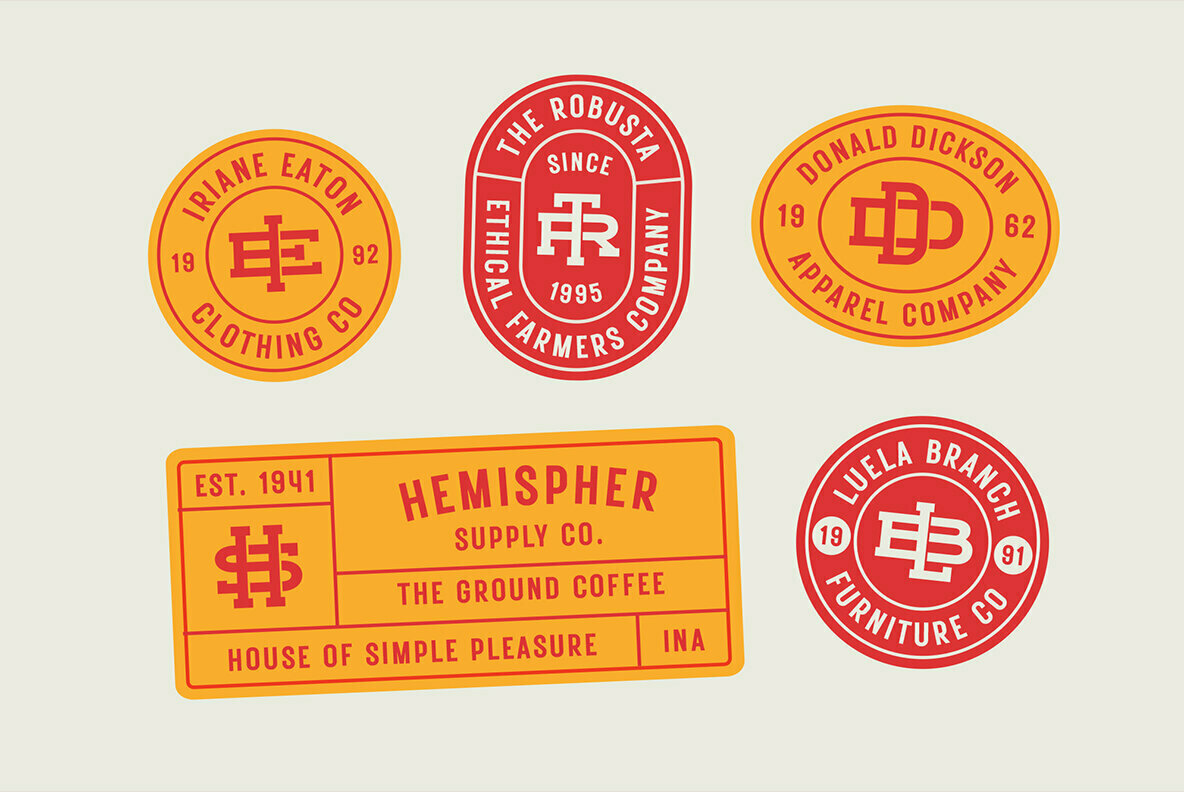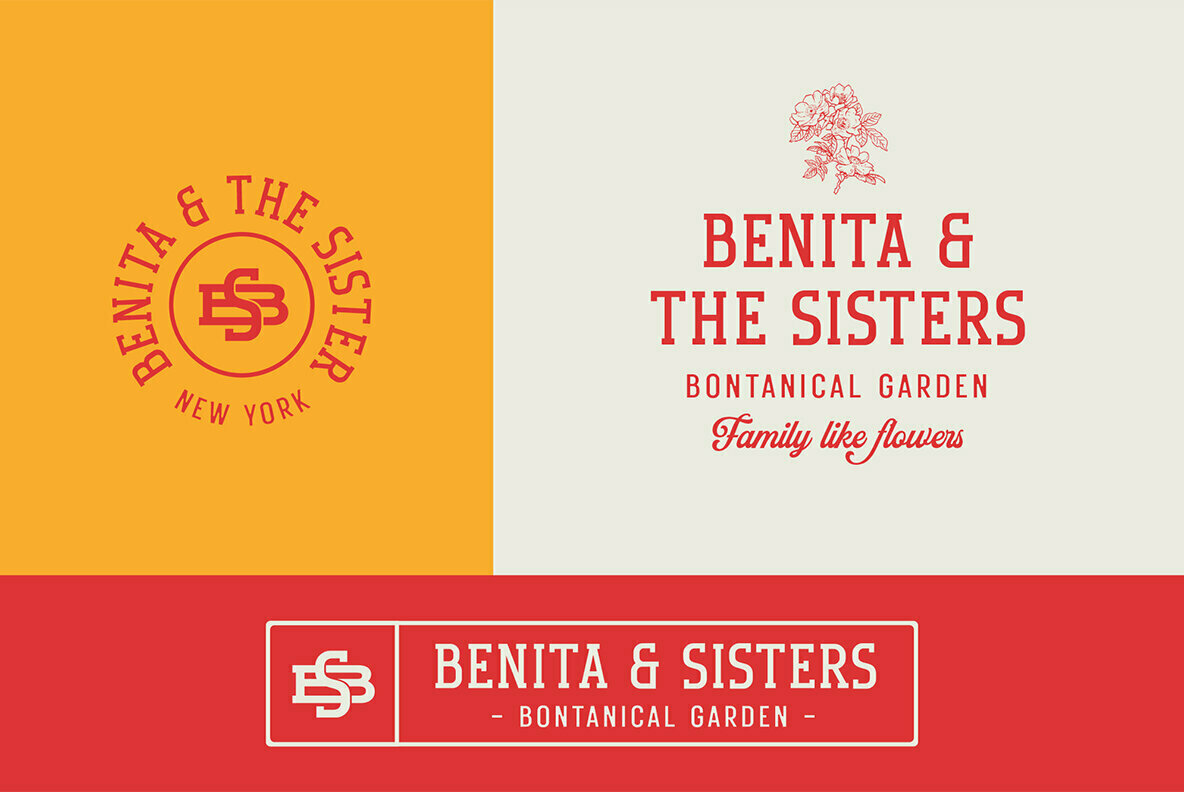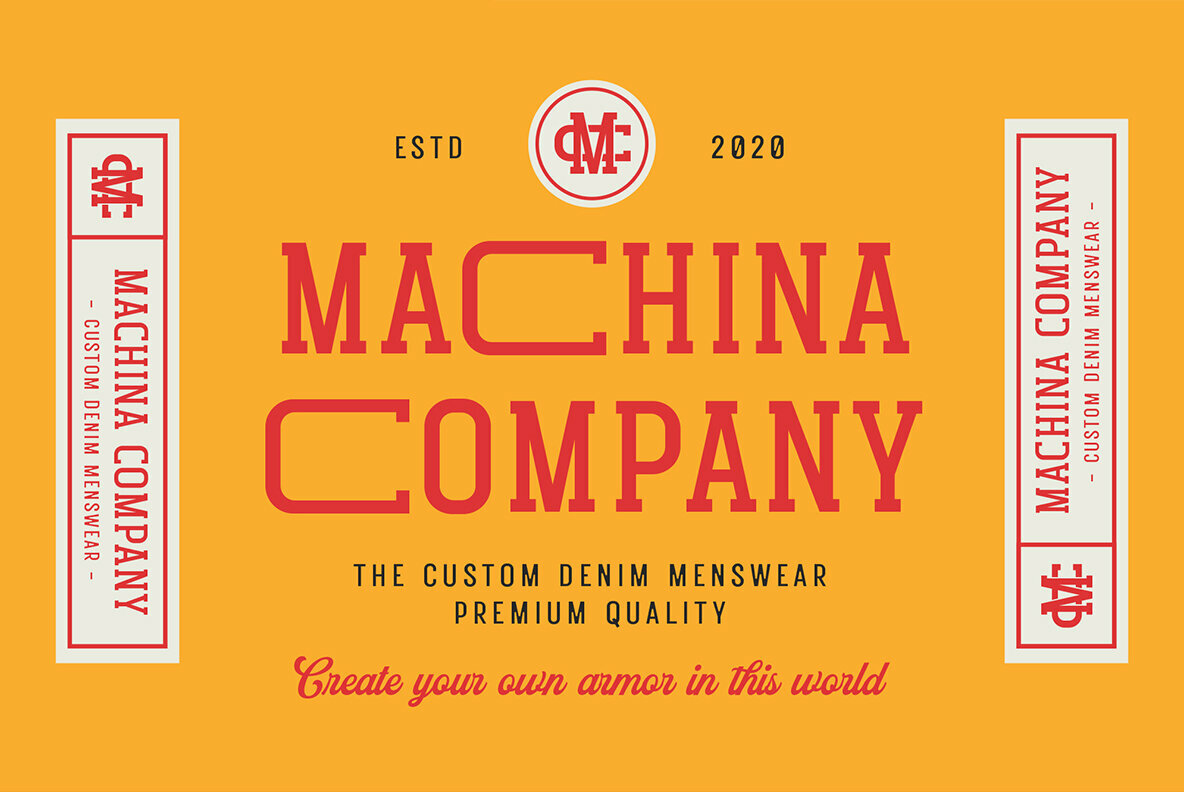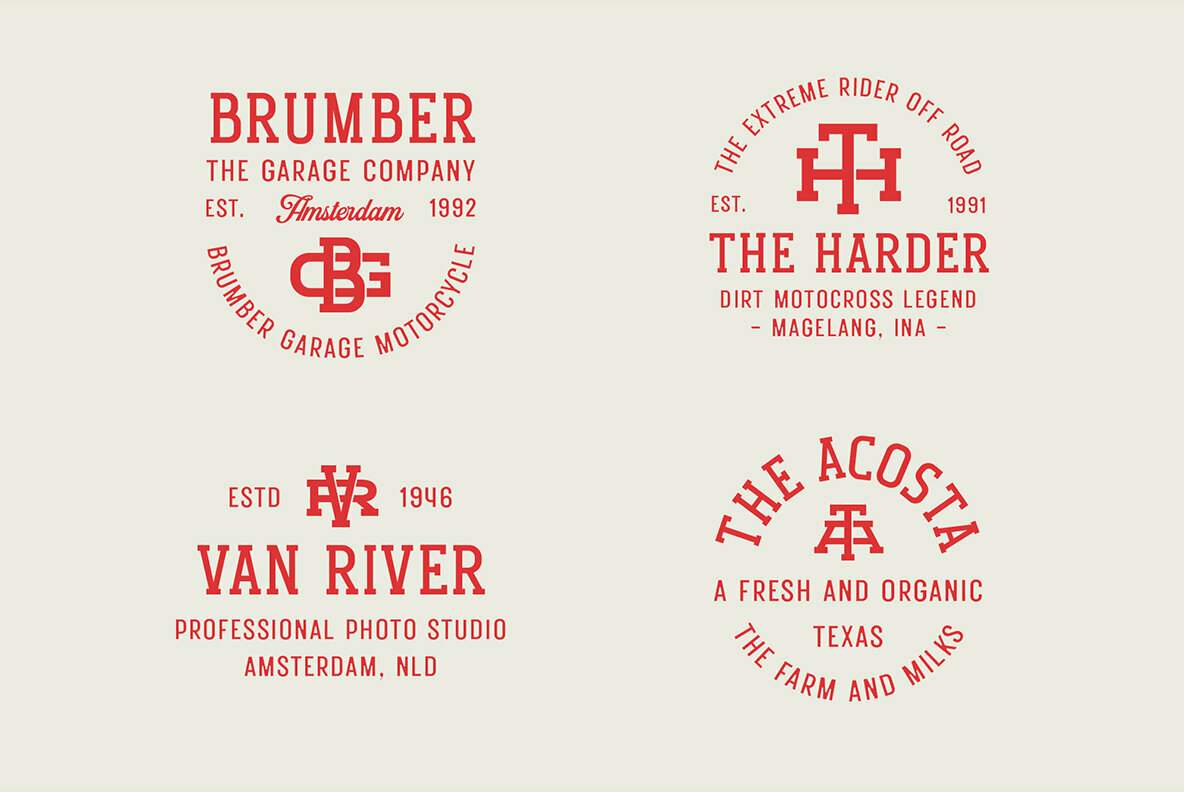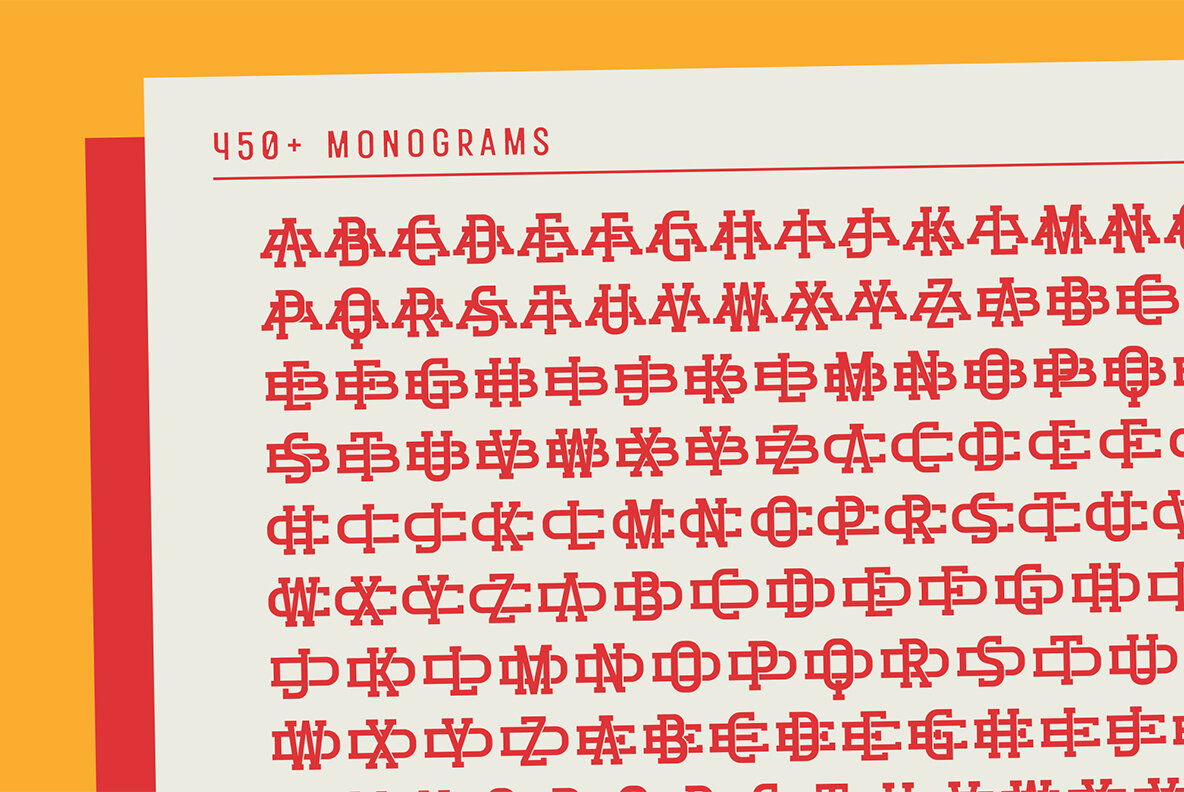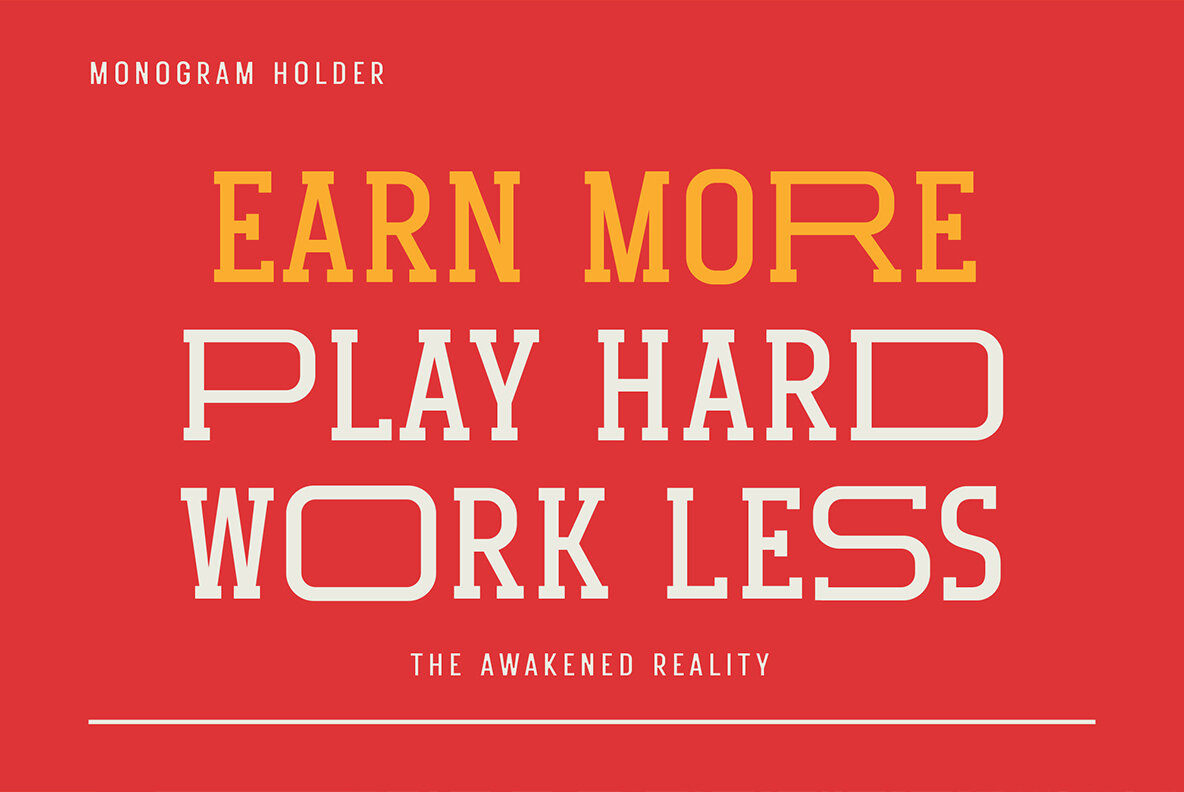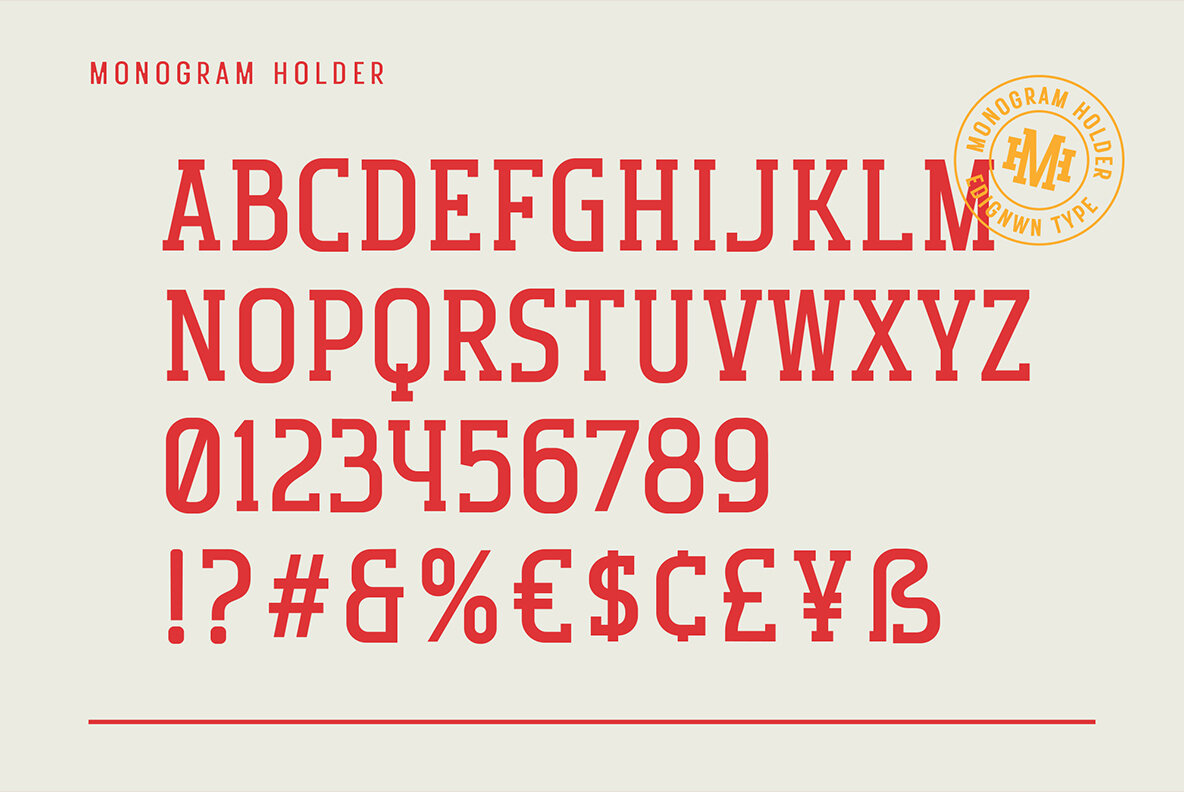
Monogram Holder Font
Monogram Holder
Monogram Holder is a slab serif display with monogram themes. The font comes with 450+ combined of two letters, you just type uppercase letters with lowercase letters. For example you type "M" combined with "h" then it will become a ligature monogram of "M" and "h". This font includes different widths of alternate glyphs. The Monogram Holder matches apply in some designs such as the logotype, poster, label, badge, packaging, branding, and more custom design.
- 450+ ligature monograms
- All-caps, numeral, symbol and punctuation